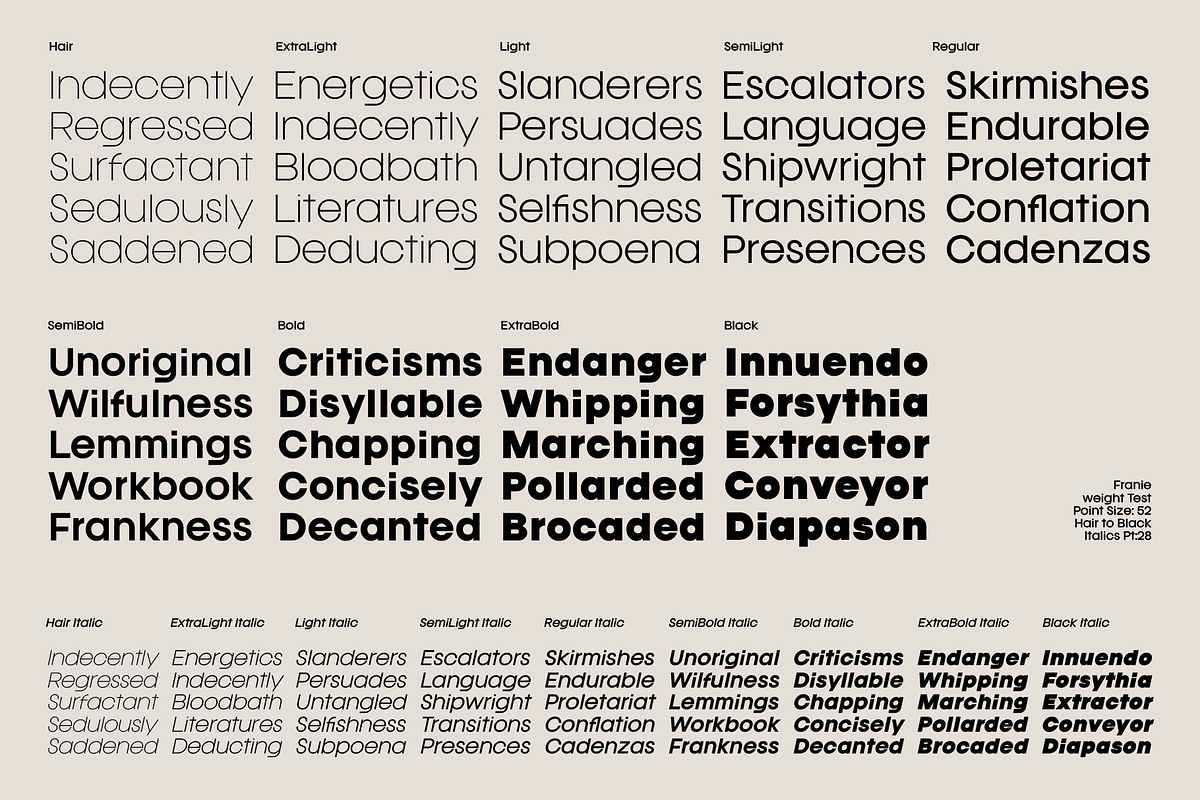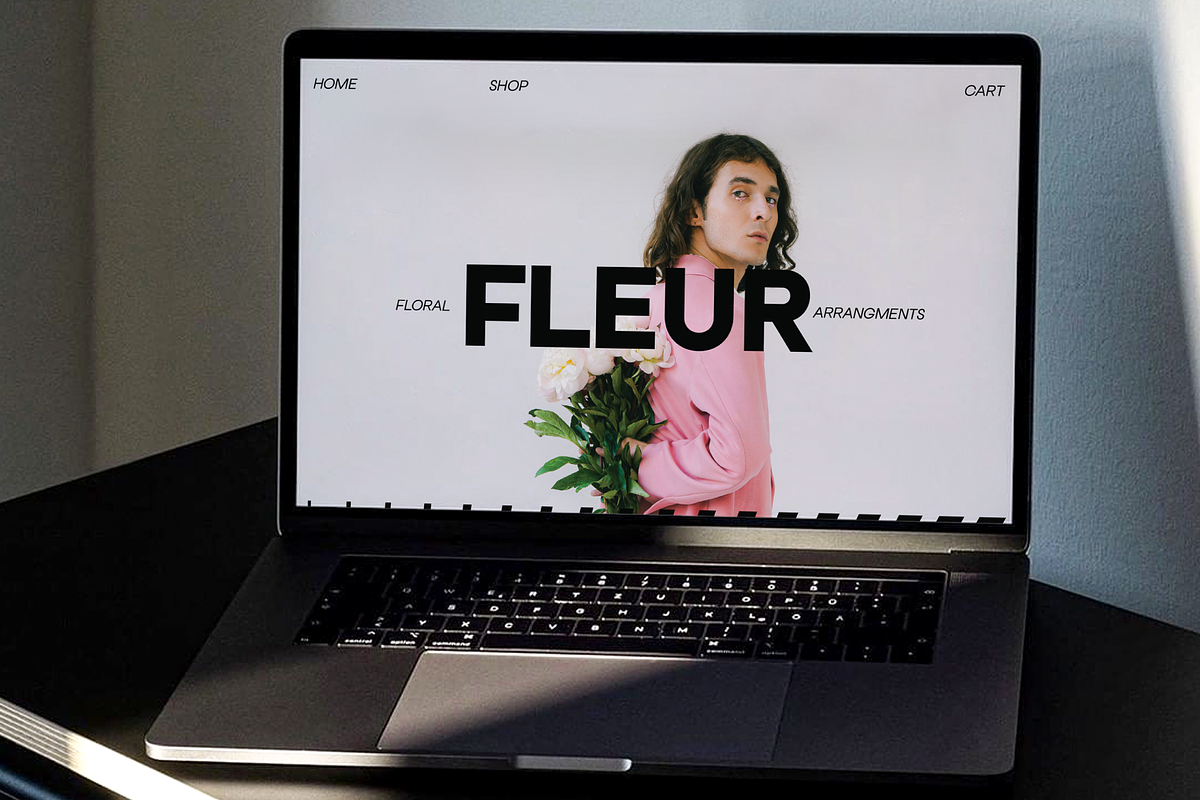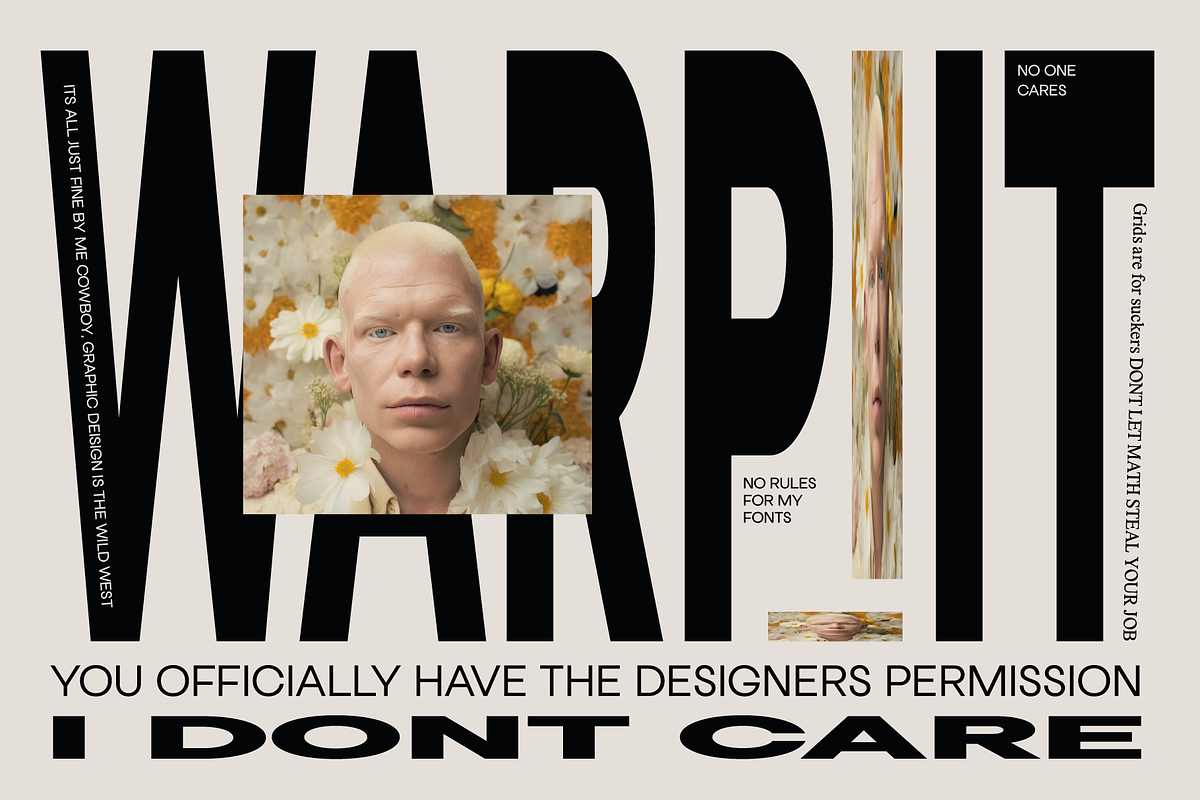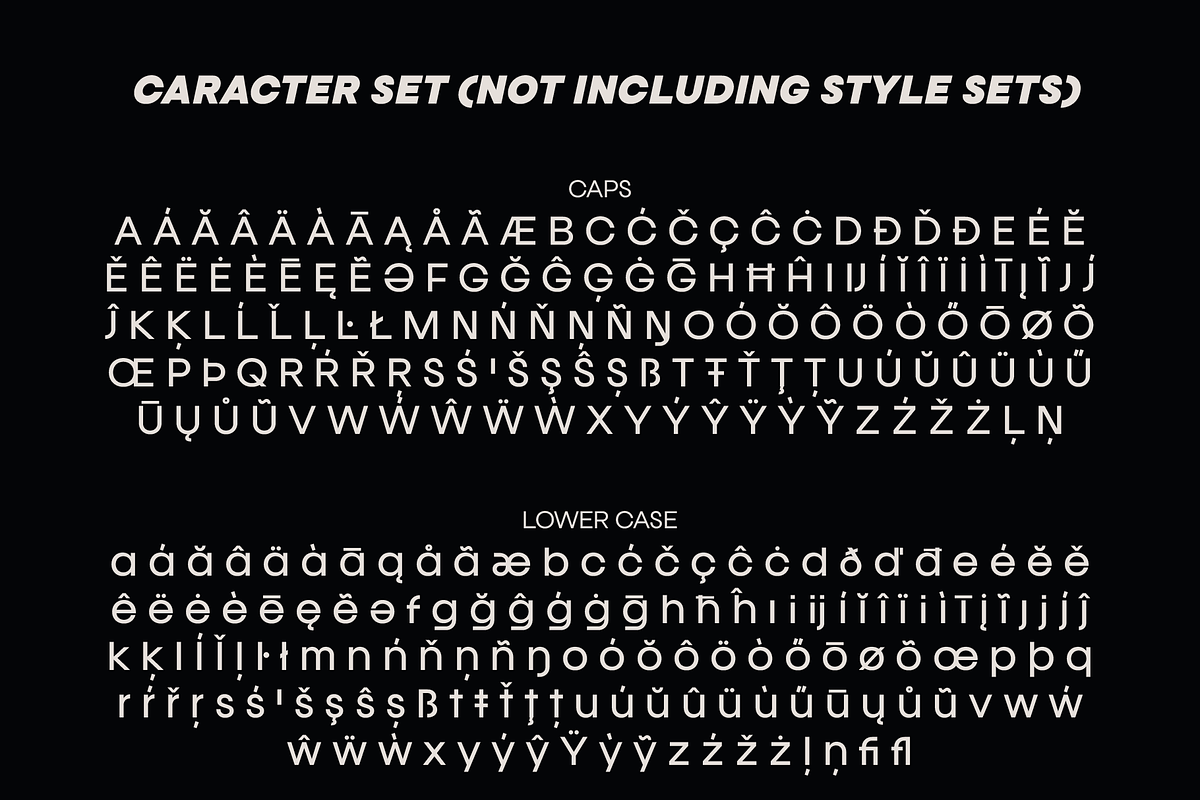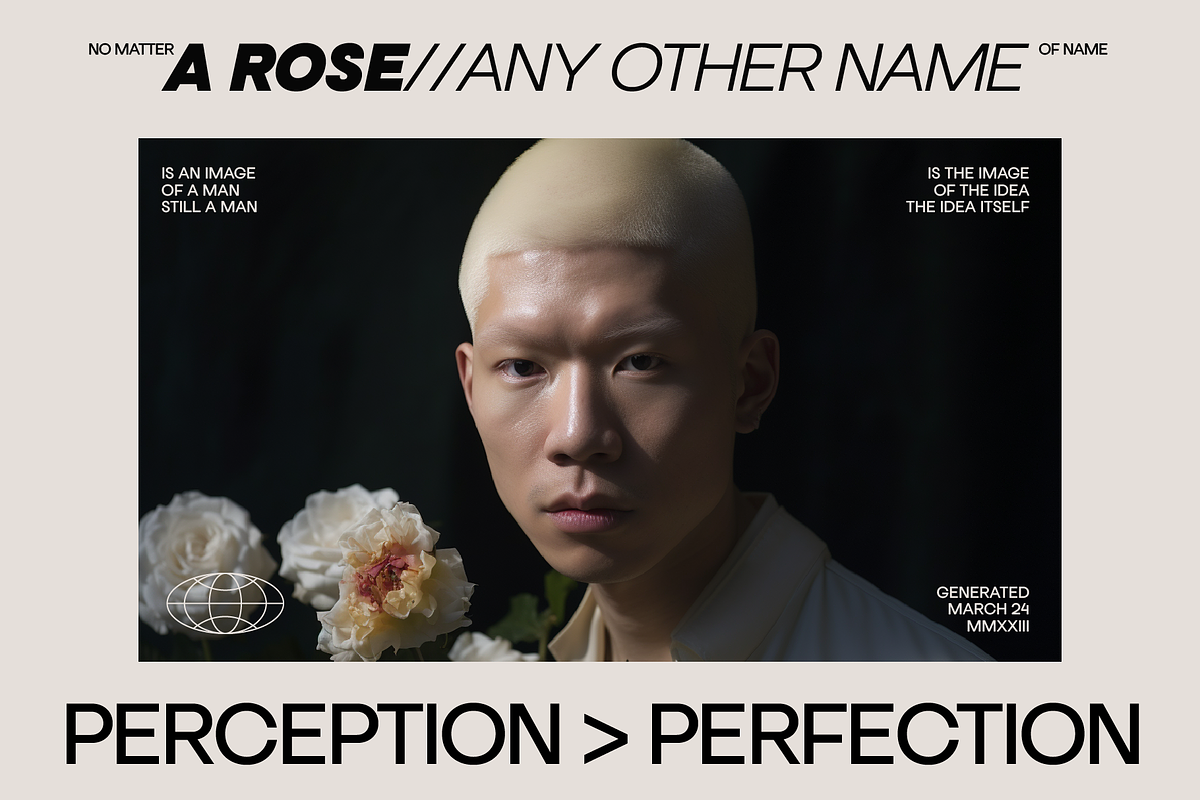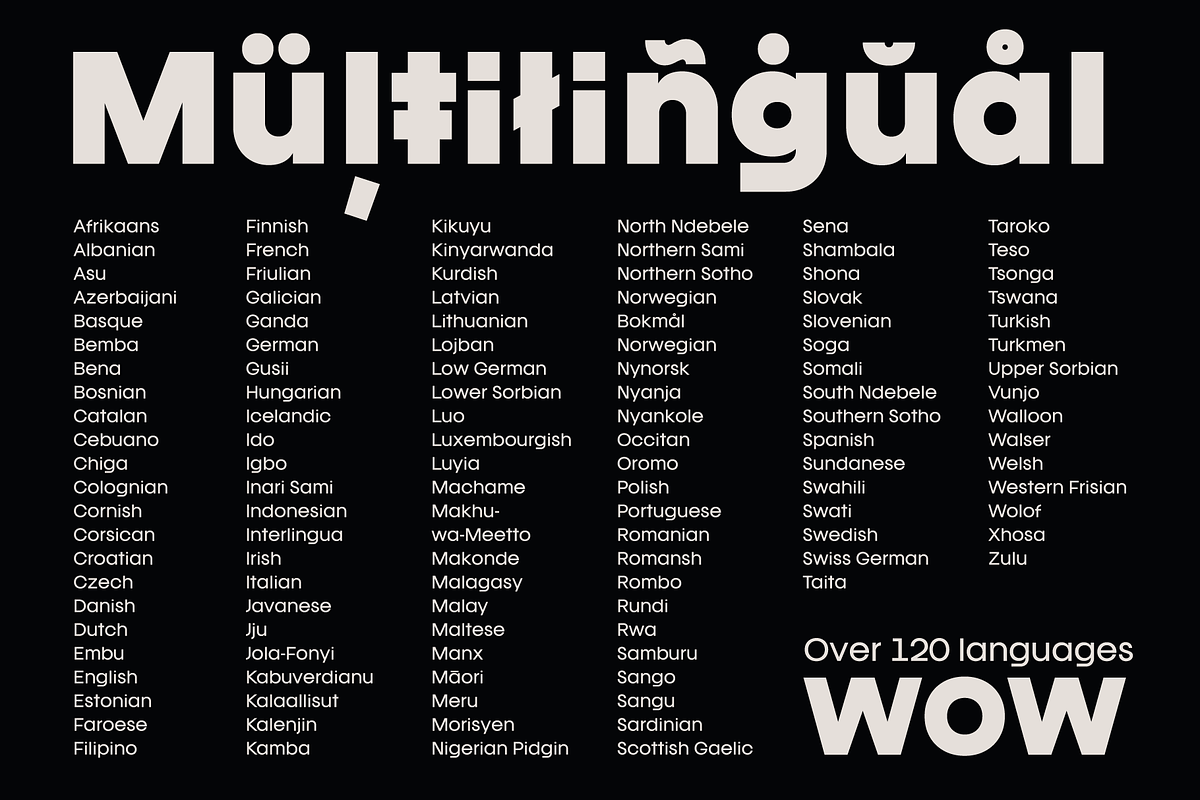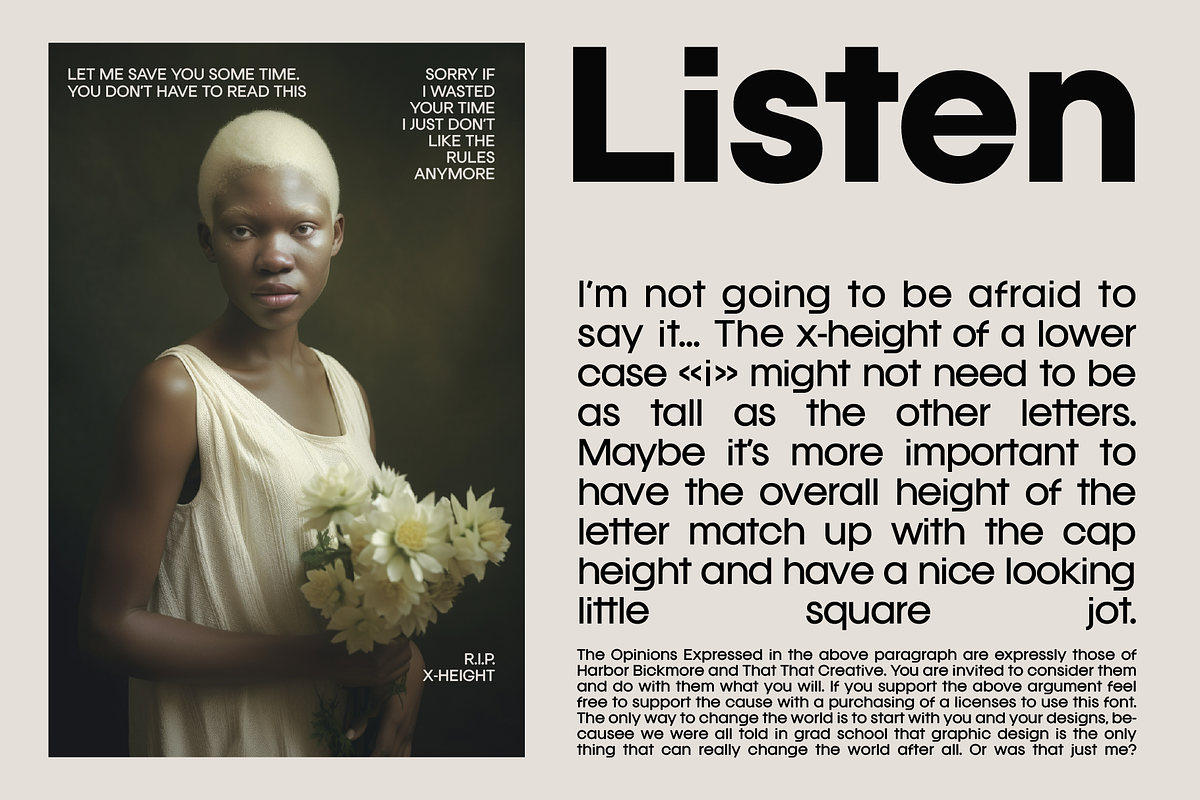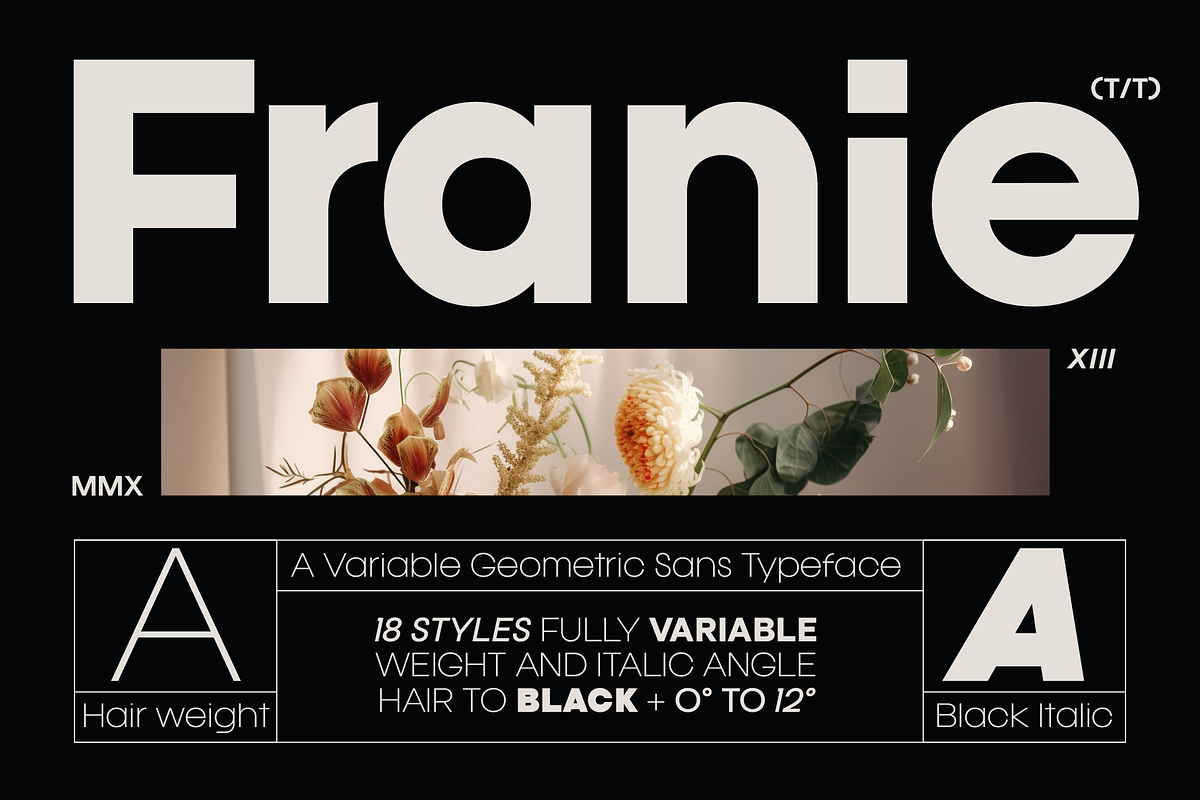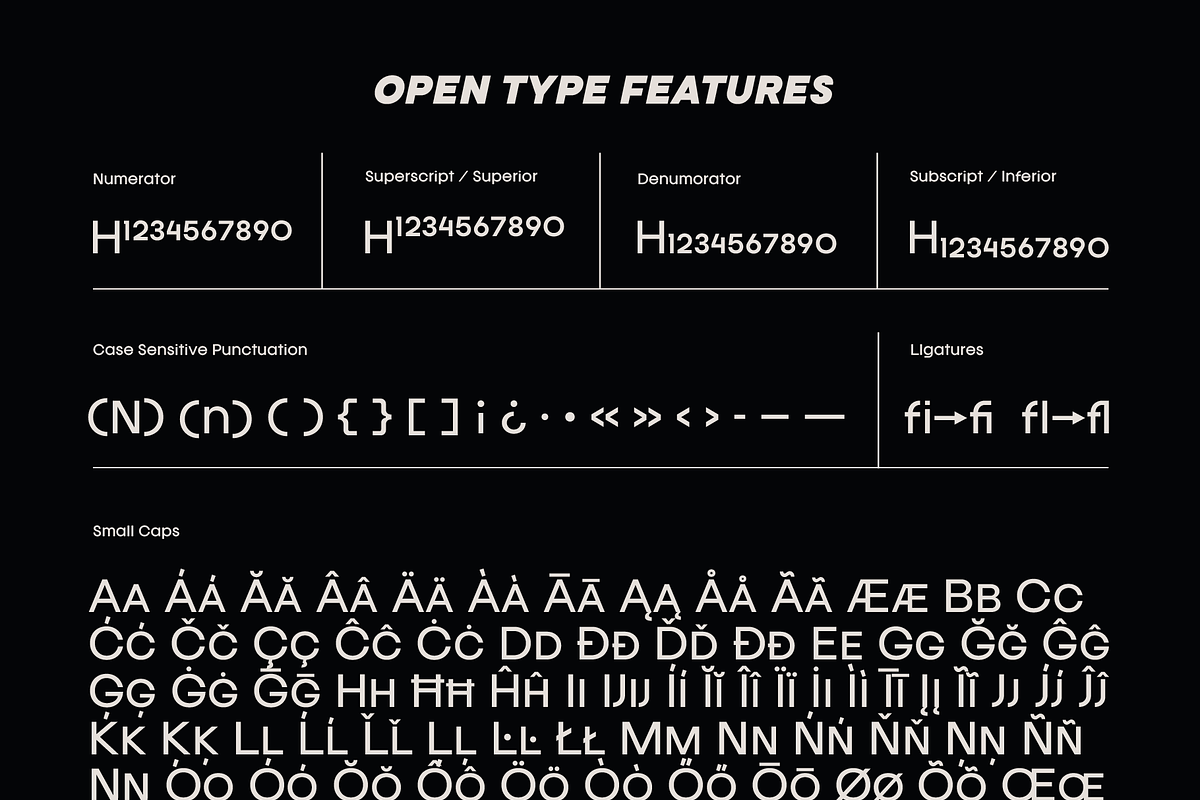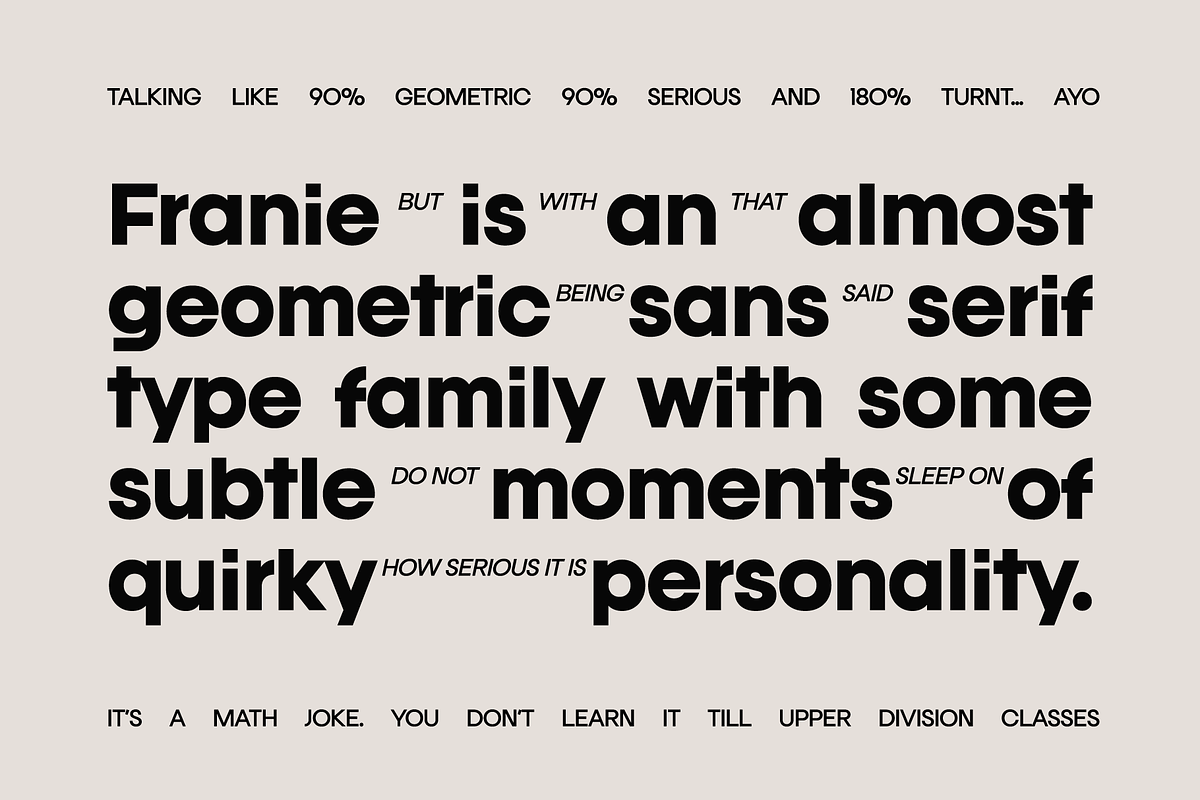
Franie Geometric Sans Family
18 Styles + Variable
Franie is designed to be your go to geometric sans font family. It is serious, but has playful moments like the lower X hight of the lower case "I" in the heavy wights. and the straight angled curve of the lower case "g". Fanie However is not your average Geometric Sans. Franie Comes in 18 styles 9 weights + Italics and it is all variable. with a weight range of hair to black and an italic angle form 0 to 12° you will be able to dial in the exact feel that you are looking for.